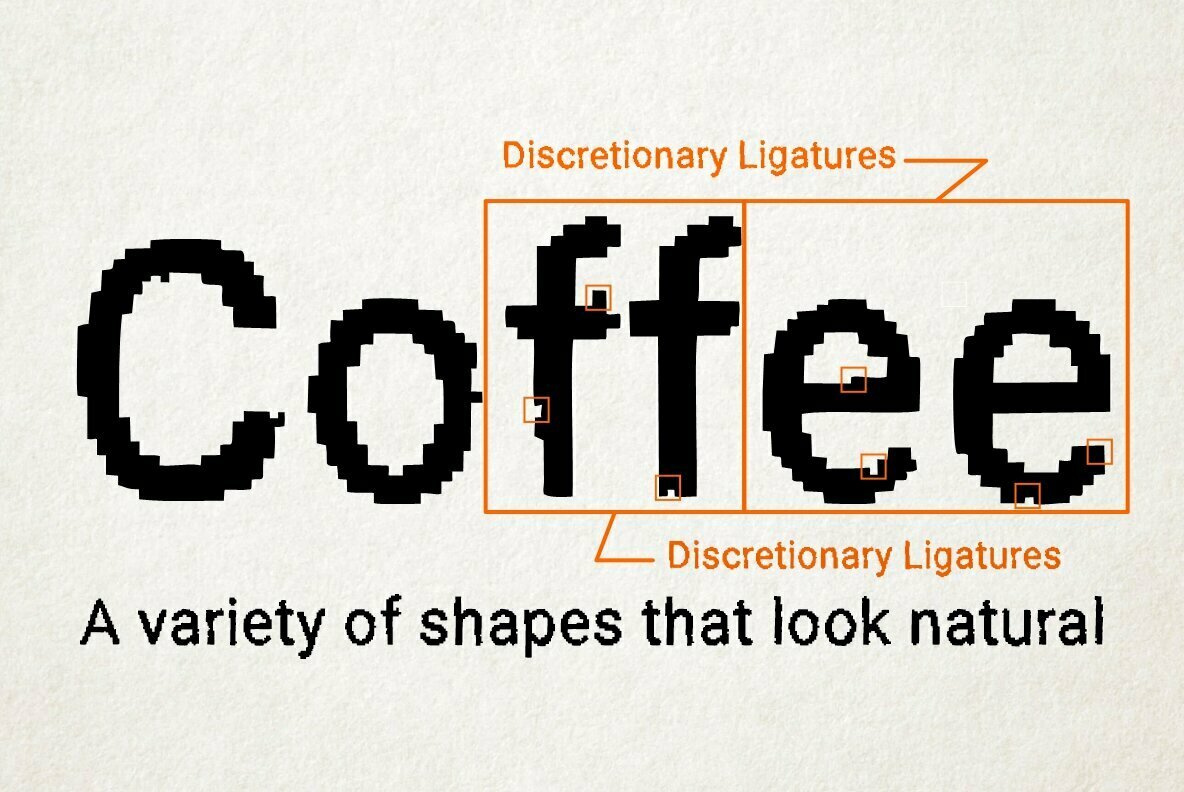
LoFi Copy 1
LoFi Copy 2
LoFi Copy 3
LoFi Copy 4
LoFi Copy 5
LoFi Copy 6
LoFi Copy 7
Lo-Fi Copy is a good way to add an analog look to your design. Brutal pixels have chaotic errors, like a damaged signal.